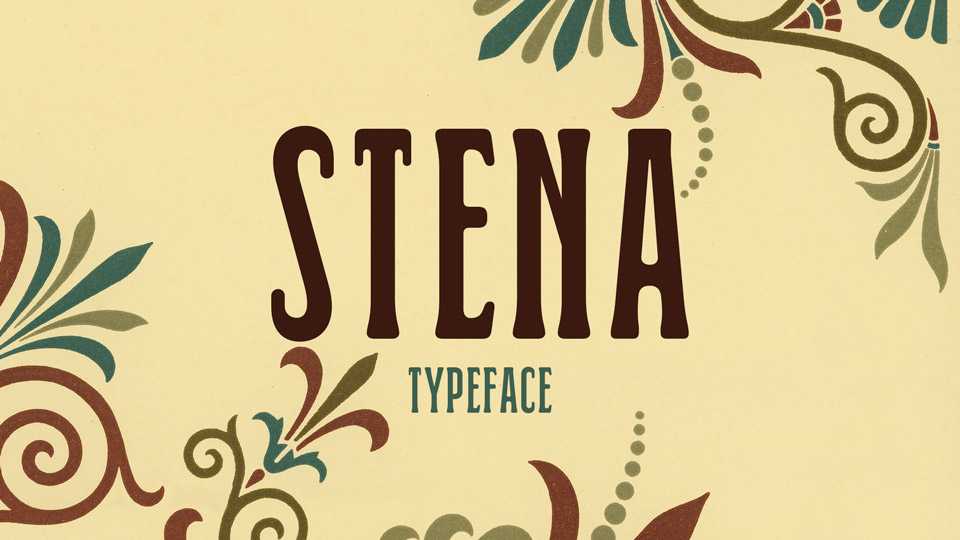
Download Stena font, a sans serif display typeface, a digital interpretation of typefaces that appear in greek typeface specimens from the early 20th century.
Designer: George Triantafyllakos